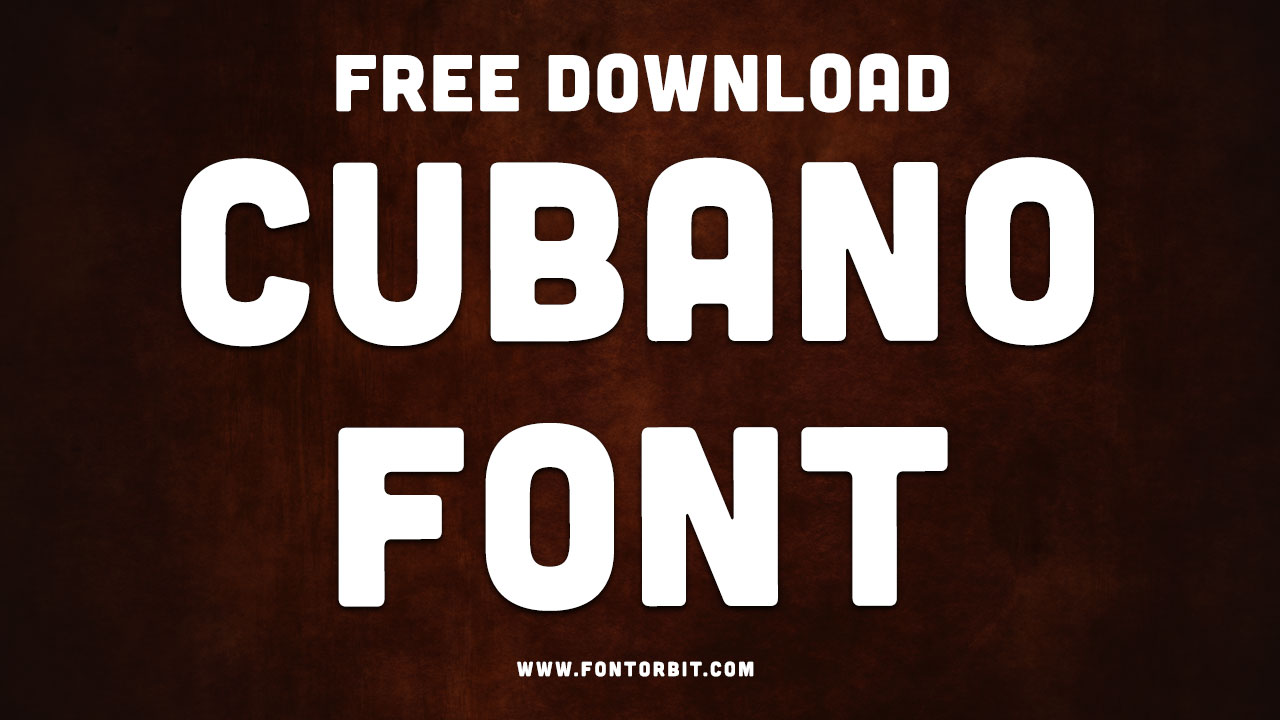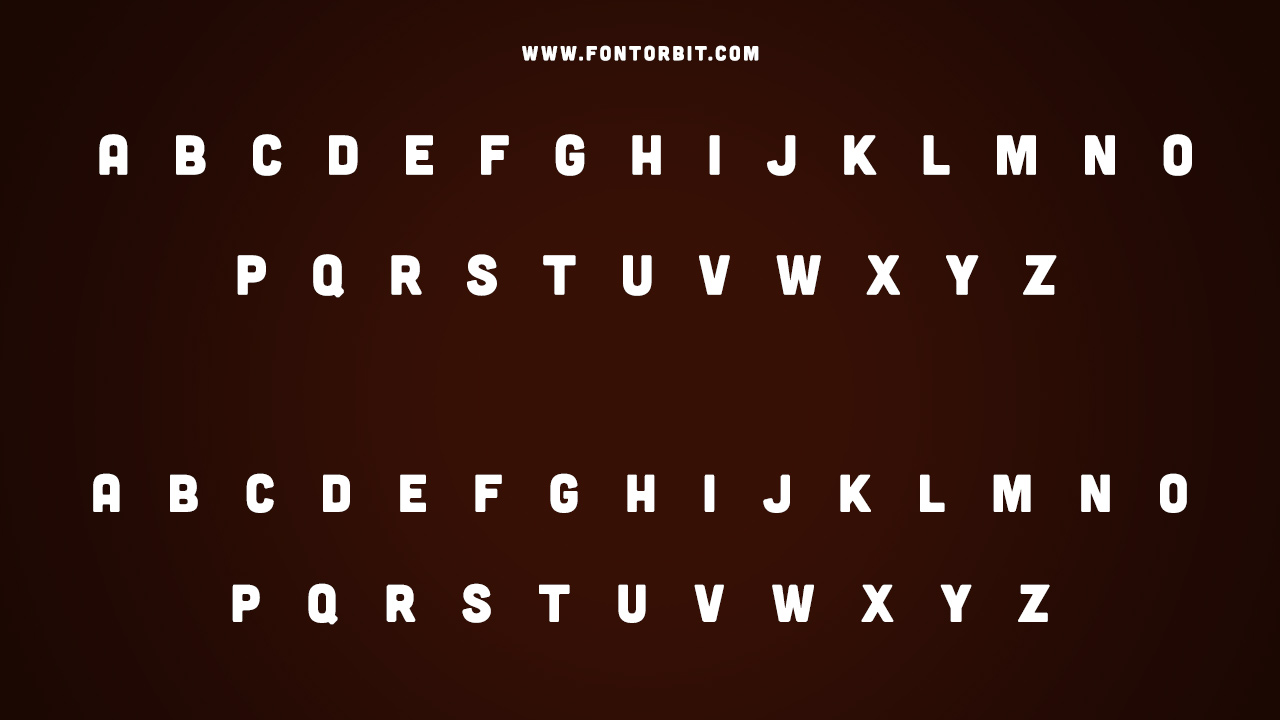
The Cubano Font, designed by Chandler Van De Water, is a striking typeface with rounded corners, wide strokes, and semi-condensed letterforms.
With its unique design elements, Cubano brings a friendly and approachable feel to any project. This versatile font is perfect for various applications, from website design to branding.
The Cubano Font Family
Cubano is designed with a condensed structure and heavy strokes, complemented by soft, rounded corners. This design choice gives the font a distinctive and approachable personality.
It is available in uppercase only, with a single weight and a matching italic style. Additionally, Cubano includes 167 glyphs, covering numerals, punctuation, symbols, and most accent marks, making it highly functional for different text types.
Cubano’s friendly and bold appearance makes it ideal for various design projects. Its webfont compatibility ensures it looks great on digital platforms, while its distinctive style makes it stand out in printed materials.
Cubano Font combines a distinctive rounded design with wide strokes to create a friendly and versatile typeface. Available in uppercase only with matching italic, it includes web fonts and supports a variety of glyphs, making it suitable for both digital and print projects. Its unique style will add a bold and approachable character to your designs.
Cubano Font is a typeface designed by Chandler Van De Water. It features rounded corners, wide strokes, and semi-condensed letterforms, offering a friendly and distinctive appearance.
Cubano features rounded corners, heavy strokes, and a condensed design. It is available in uppercase only with a single weight and matching italic style, including 167 glyphs.
Use Cubano to create bold and approachable branding materials, including logos, headlines, and promotional materials, both online and in print.